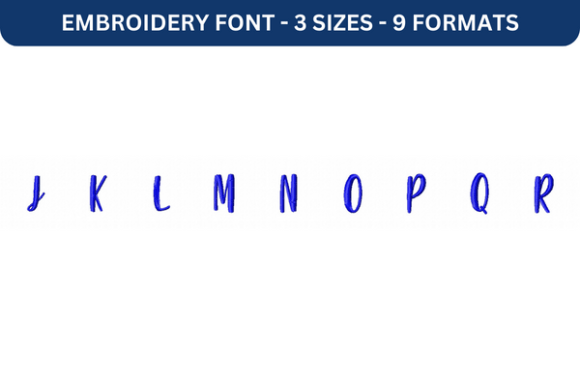
Strawberry Blossom Font Upper J to R
Strawberry Blossom Font Upper J to R is a unique embroidery font that brings a touch of elegance and charm to any fabric design. Whether you're creating personalized gifts, custom apparel, or decorative items, this font offers a distinctive aesthetic that stands out. Its delicate curves and soft lines make it ideal for both personal use and commercial projects.
The Beauty of Strawberry Blossom Font Upper J to R
The Strawberry Blossom Font Upper J to R is designed with a focus on artistic appeal and versatility. Each letter is crafted with intricate details that mimic the natural beauty of blossoms, making it perfect for those who appreciate handcrafted designs. The font's character set includes all uppercase letters from J to R, allowing for a wide range of creative possibilities.
One of the standout features of this font is its ability to blend seamlessly with various fabric types. From cotton to silk, the Strawberry Blossom Font Upper J to R maintains its visual integrity without losing clarity. This makes it an excellent choice for embroidery enthusiasts looking to add a personal touch to their creations.
Where Can You Use Strawberry Blossom Font Upper J to R?
- Personalized Gifts: Add a special message to wedding invitations, baby shower items, or anniversary cards.
- Custom Apparel: Embellish t-shirts, tote bags, or denim jackets with names, dates, or meaningful quotes.
- Decorative Items: Create embroidered wall art, table runners, or pillow covers that reflect your style.
- Business Branding: Use the font for logos, signage, or promotional materials to enhance brand identity.
Whether you're a beginner or an experienced designer, the Strawberry Blossom Font Upper J to R provides a versatile tool that can elevate your projects. Its elegant design is especially popular among crafters, artists, and small business owners looking to create unique products.
Key Features of Strawberry Blossom Font Upper J to R
The Strawberry Blossom Font Upper J to R comes with several key features that make it user-friendly and effective for a variety of applications:
- Easy to Use: With clear outlines and consistent spacing, the font is simple to stitch and customize.
- High-Quality Stitches: The design ensures that each letter is stitched cleanly and clearly, even when scaled up or down.
- Customizable: Users can adjust the size, color, and placement of the font to suit their specific needs.
These features make the Strawberry Blossom Font Upper J to R a valuable asset for anyone involved in embroidery design. It’s particularly well-suited for personal projects where attention to detail matters.
Who Benefits from Using Strawberry Blossom Font Upper J to R?
The Strawberry Blossom Font Upper J to R is beneficial for a wide range of users, including:
- Crafters: Looking to add a unique touch to handmade items.
- Embroidery Enthusiasts: Seeking a new font to expand their design repertoire.
- Small Business Owners: Creating branded merchandise or promotional materials.
- Artists: Incorporating the font into larger artistic compositions.
- Online Creators: Selling custom embroidery designs on platforms like Etsy or social media.
Its visual appeal and ease of use make it an excellent choice for both novice and expert users alike.
Real-World Applications of Strawberry Blossom Font Upper J to R
The Strawberry Blossom Font Upper J to R has been used in numerous real-world scenarios, demonstrating its versatility and effectiveness:
- Wedding Invitations: A couple used the font to embroider custom names on their invitation cards, adding a personal and romantic touch.
- Custom T-Shirts: A local boutique incorporated the font into a line of vintage-style shirts, which became a bestseller.
- Home Decor: A home decorator used the font to create embroidered cushions and tablecloths that matched a client’s floral theme.
- Gift Tags: A small business owner added the font to gift tags, enhancing the presentation of their handcrafted products.
These examples show how the Strawberry Blossom Font Upper J to R can be applied in different contexts, making it a flexible and valuable resource for creators.
Considerations and Limitations
While the Strawberry Blossom Font Upper J to R offers many benefits, it’s important to consider some limitations:
- Design Complexity: The intricate detailing may require more time and skill to stitch, especially for beginners.
- Compatibility: Ensure your embroidery machine supports the file format you’ve chosen.
- Color Choices: The font works best with single-color threads, though multi-color options are possible with additional effort.
Despite these considerations, the Strawberry Blossom Font Upper J to R remains a popular choice due to its unique design and versatile application.
With its delicate design, versatile use, and high-quality output, the Strawberry Blossom Font Upper J to R is an excellent addition to any embroidery enthusiast's toolkit. Explore its potential and discover how it can transform your next project into something truly special.